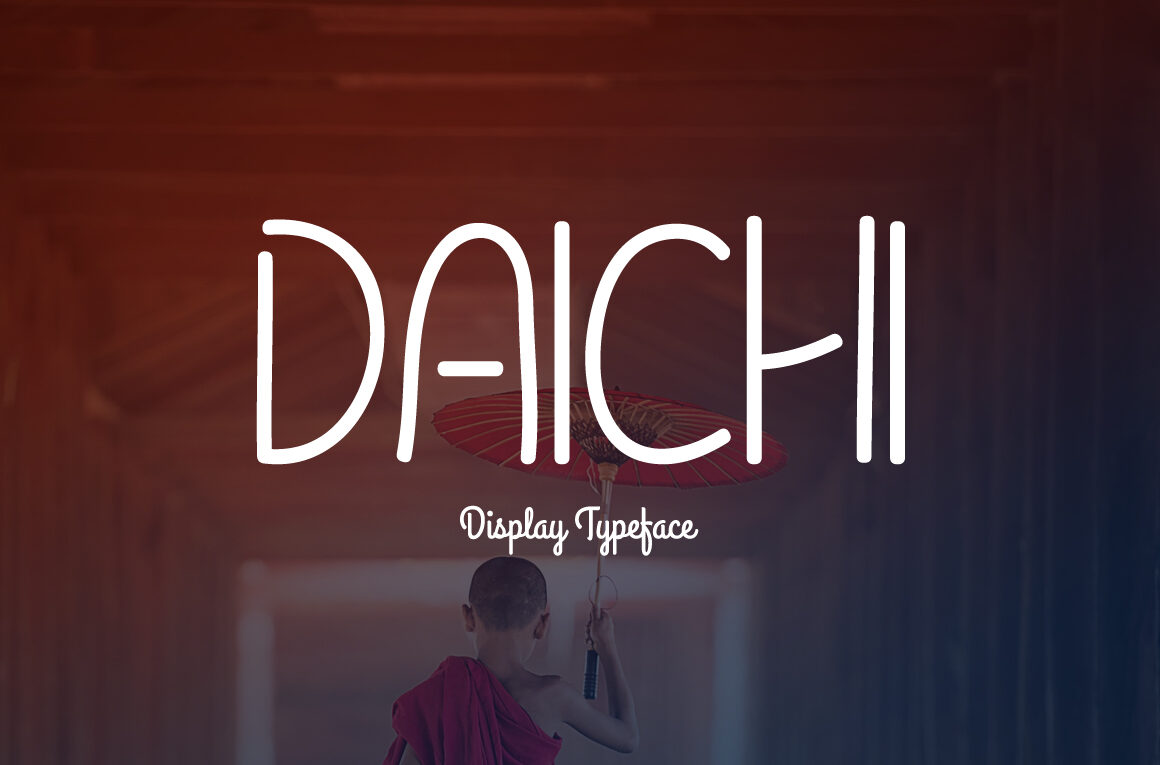
Discover the Charm of Daichi Font: Adding Character to Your Designs
Are you tired of using the same old fonts in your designs? Look no further than Daichi Font, a charming stencil font that’s sure to add a touch of personality to your projects. With its organic hand strokes and freestyle vibe, Daichi is the perfect choice for designers and crafters looking to create something unique and eye-catching.
What Makes Daichi Font So Special?
Daichi Font is a one-of-a-kind font that’s been carefully crafted to bring a sense of fun and sincerity to your designs. Its stencil style gives it a distinctive look that’s both modern and retro, while its organic hand strokes add a touch of warmth and humanity. Whether you’re working on a logo, a poster, or a craft project, Daichi Font is sure to make your design stand out from the crowd.
Key Features of Daichi Font
- Organic hand strokes: Daichi Font’s hand strokes give it a unique, handmade feel that’s perfect for adding character to your designs.
- Stencil style: The font’s stencil style gives it a modern, edgy look that’s perfect for a wide range of projects.
- Freestyle vibe: Daichi Font has a fun, carefree vibe that’s perfect for designers and crafters who want to add a touch of personality to their work.
- Highly versatile: Daichi Font can be used for a wide range of projects, from logos and posters to craft projects and more.
Uses for Daichi Font
Daichi Font is a highly versatile font that can be used for a wide range of projects, including:
- Logos and branding: Daichi Font’s unique style makes it perfect for creating memorable logos and branding materials.
- Posters and flyers: The font’s stencil style and organic hand strokes make it a great choice for creating eye-catching posters and flyers.
- Craft projects: Daichi Font is a great choice for crafters who want to add a touch of personality to their projects, from scrapbooking to card making.
- Digital designs: The font can also be used for digital designs, such as social media graphics, blog posts, and more.
Tips for Using Daichi Font
Here are a few tips for getting the most out of Daichi Font:
- Experiment with different colors: Daichi Font looks great in a wide range of colors, so don’t be afraid to experiment and find the perfect hue for your project.
- Play with texture: The font’s organic hand strokes give it a natural, textured look that can be enhanced with the use of texture overlays or backgrounds.
- Mix and match with other fonts: Daichi Font can be paired with a wide range of other fonts to create a unique and eye-catching design.
| Font Name | Daichi Font |
| Author | Contour Fonts |
Daichi Font is a charming, versatile font that’s perfect for designers and crafters who want to add a touch of personality to their projects. With its organic hand strokes, stencil style, and freestyle vibe, Daichi is sure to make your designs stand out from the crowd. Whether you’re working on a logo, a poster, or a craft project, Daichi Font is a great choice for anyone looking to add some character to their work.
Get Creative with Daichi Font